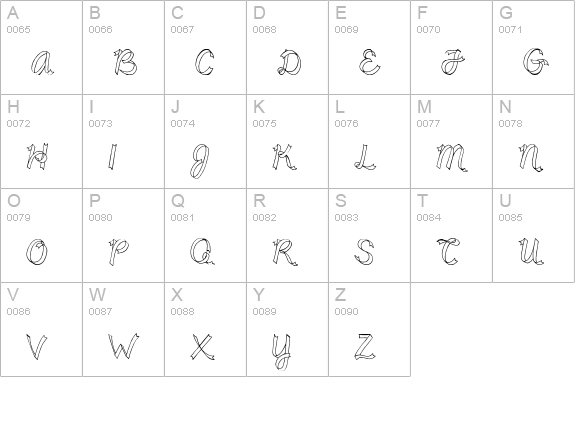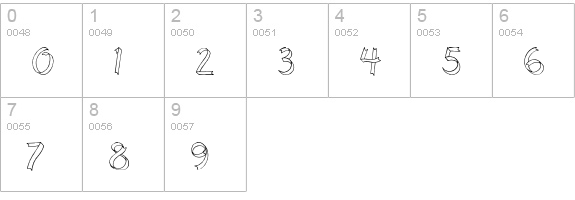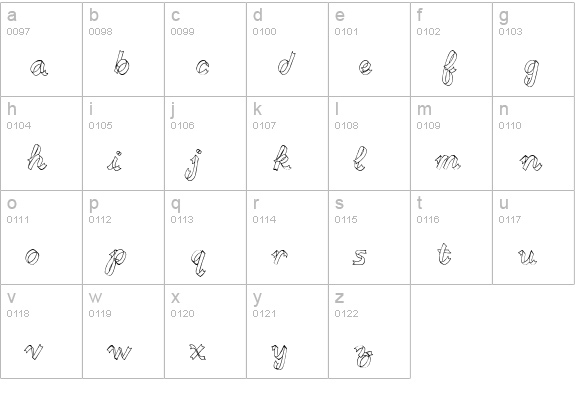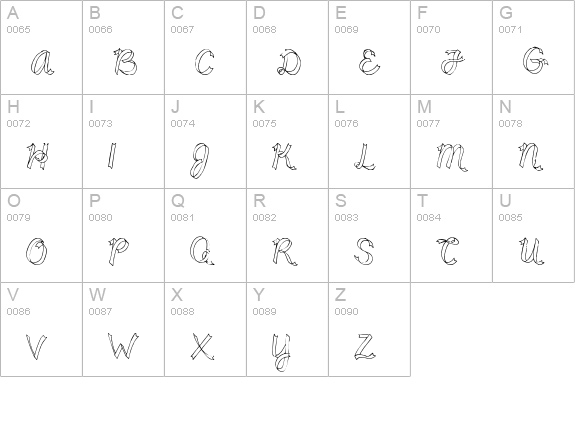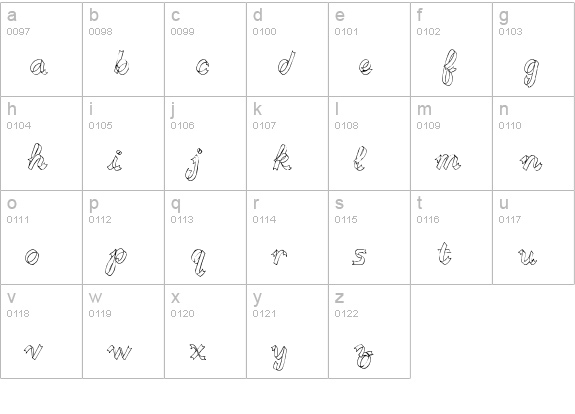
Introducing CK Ribbons font, a whimsical and playful typeface that brings a touch of charm to your designs. This unique font features intricate ribbon-like details that add a fun and festive element to any project. CK Ribbons font is perfect for invitations, greeting cards, posters, and more, adding a delightful flair to your creations. The best part? CK Ribbons font is completely free to download at FontsMarket.com, making it easily accessible for all your design needs. Embrace the creative possibilities with this delightful and eye-catching font that is sure to make your projects stand out. Download CK Ribbons font today and add a touch of whimsy to your designs.